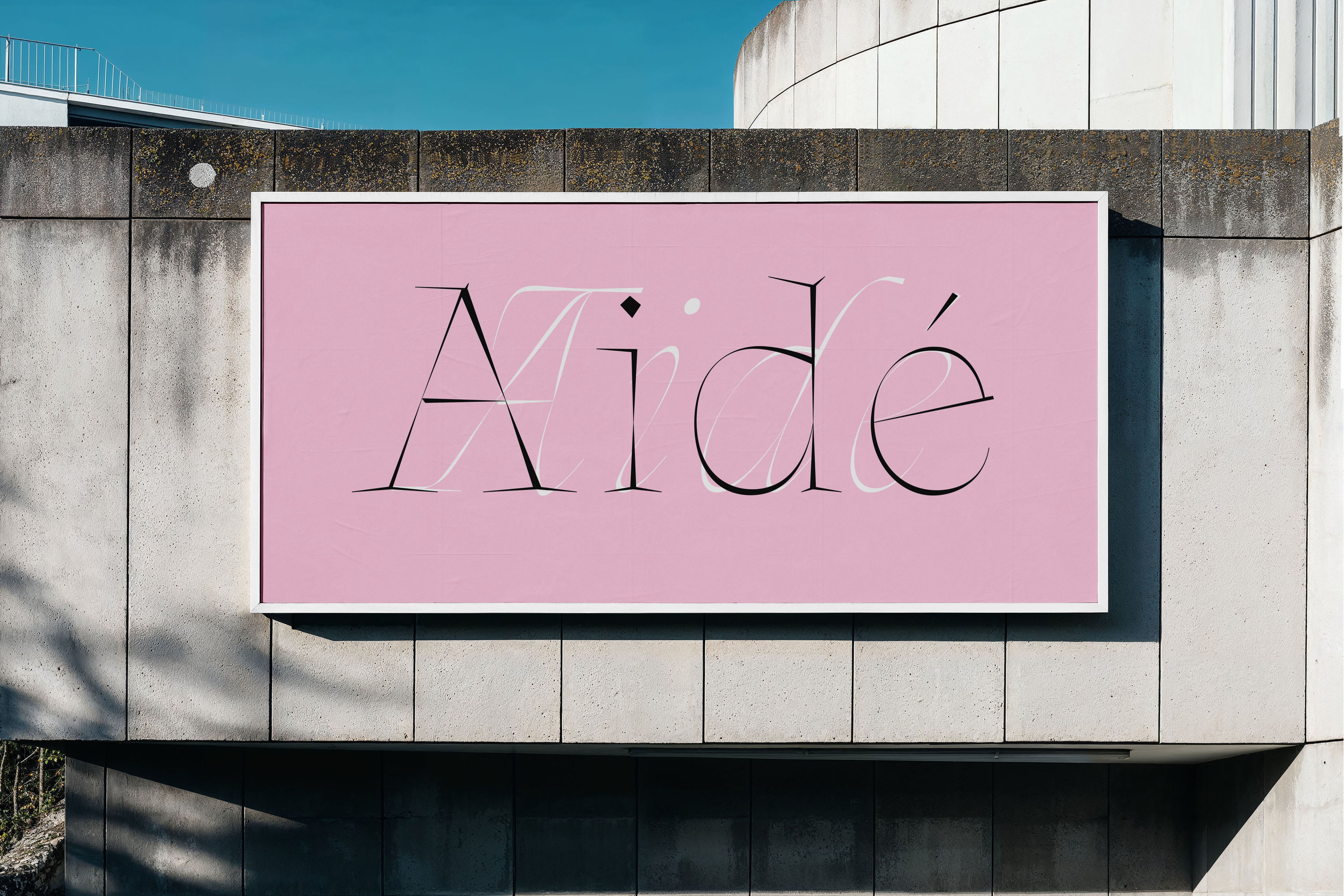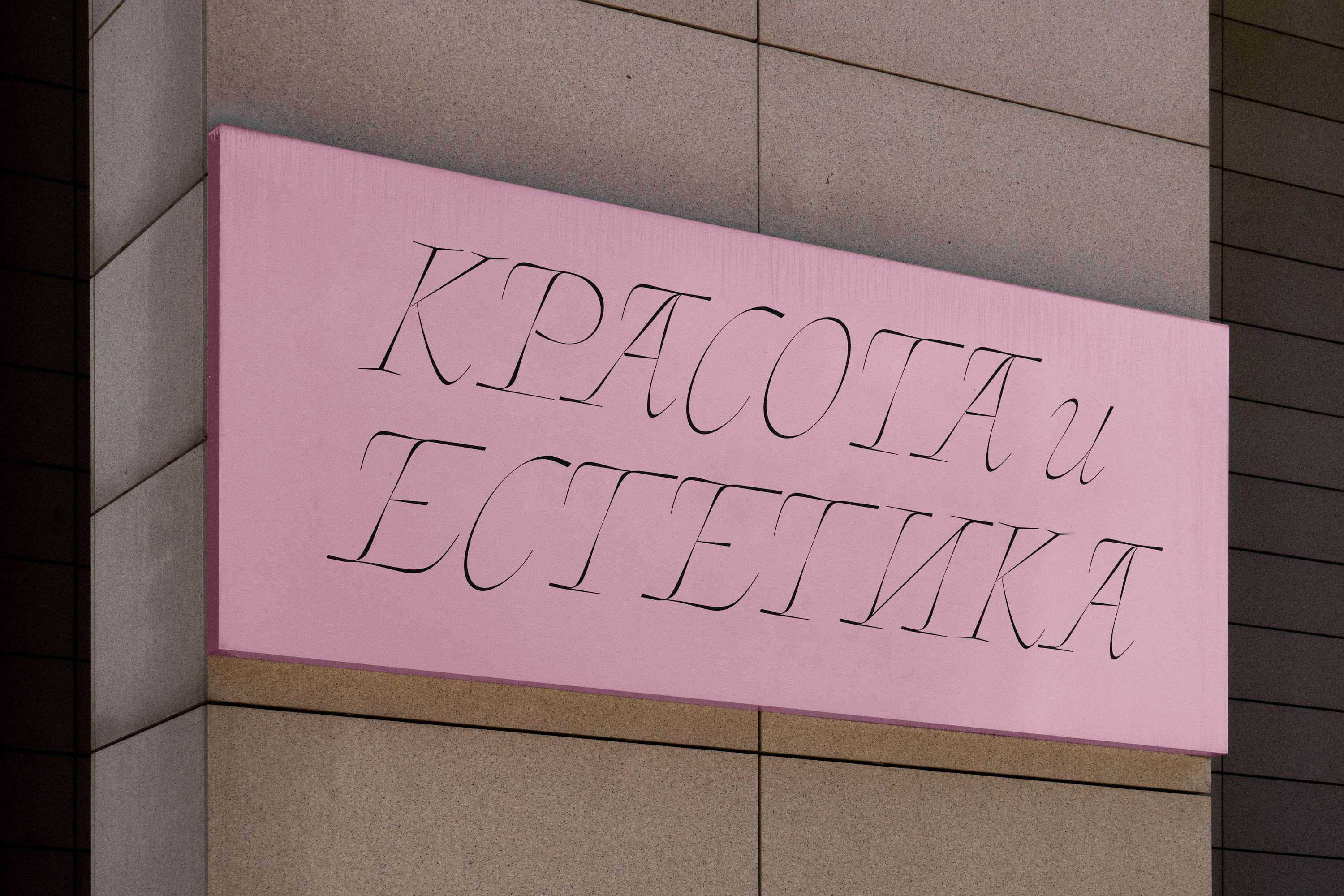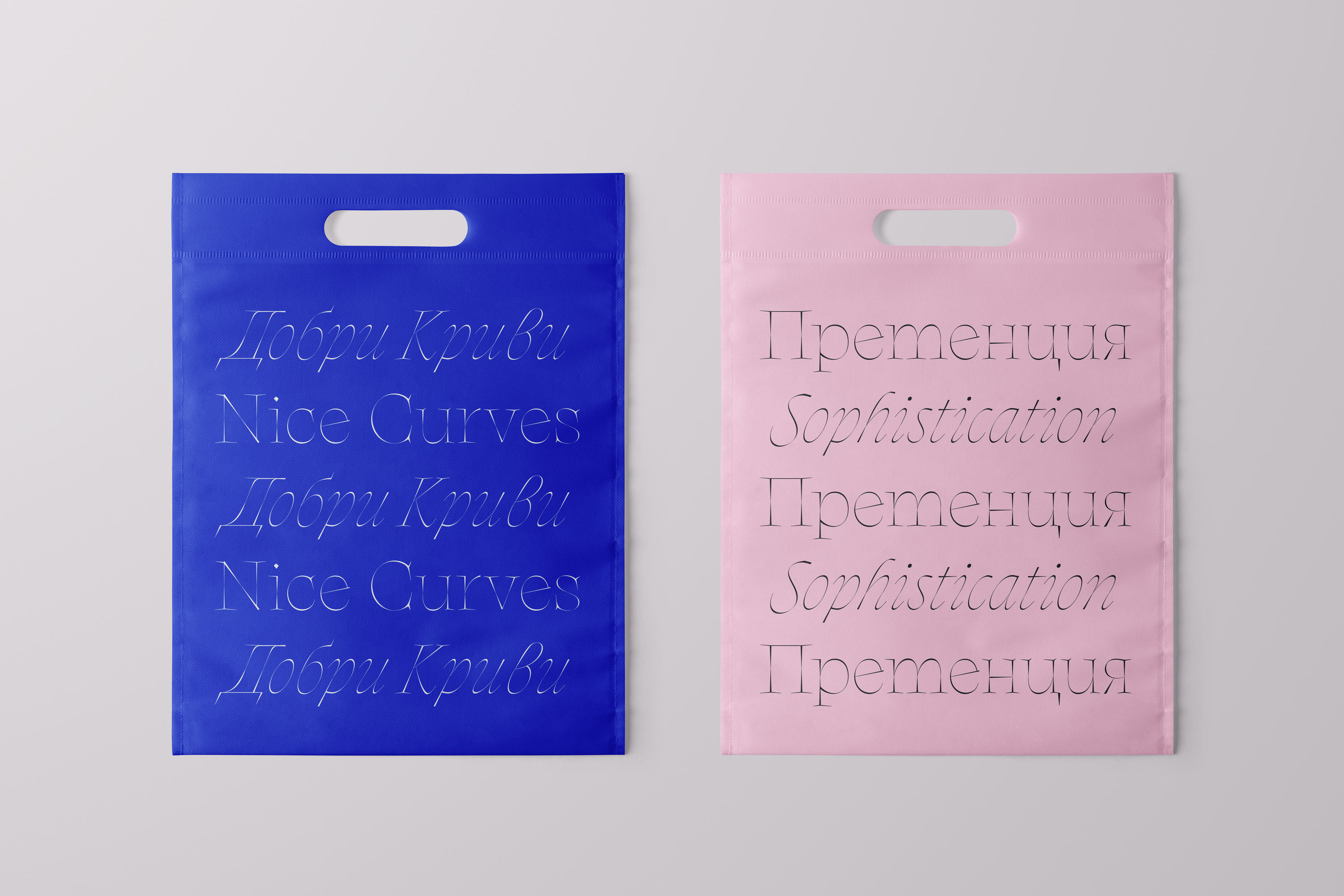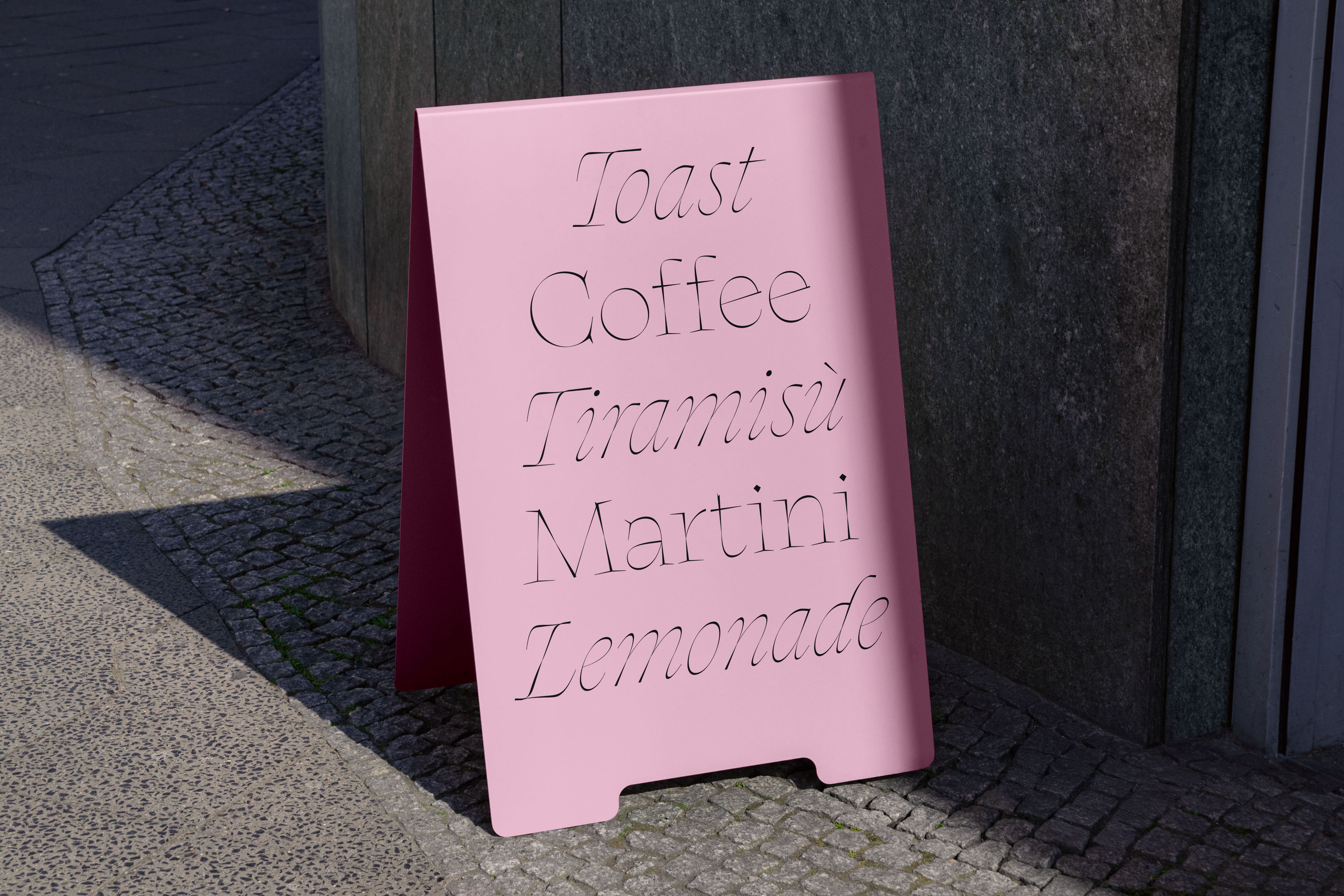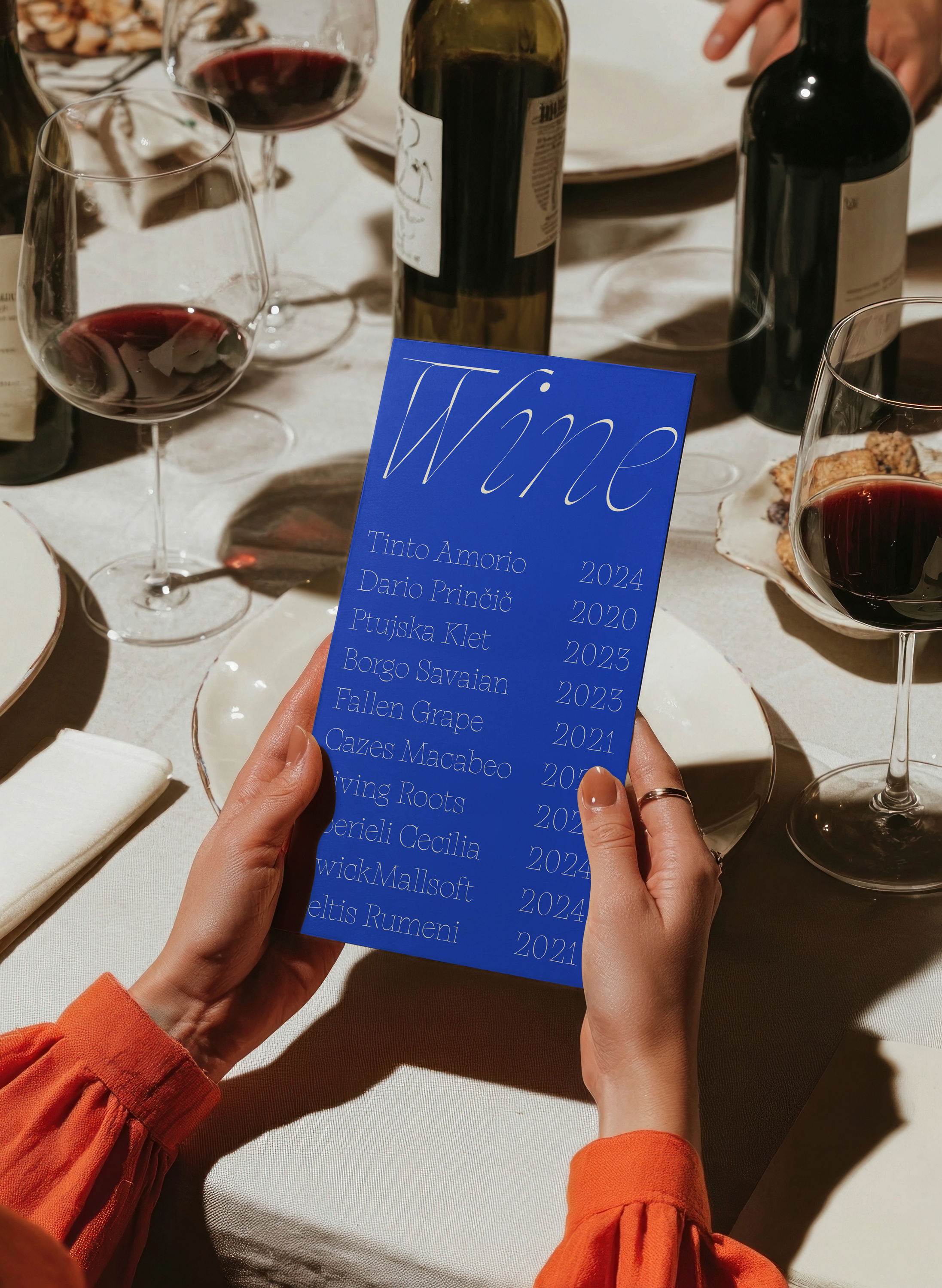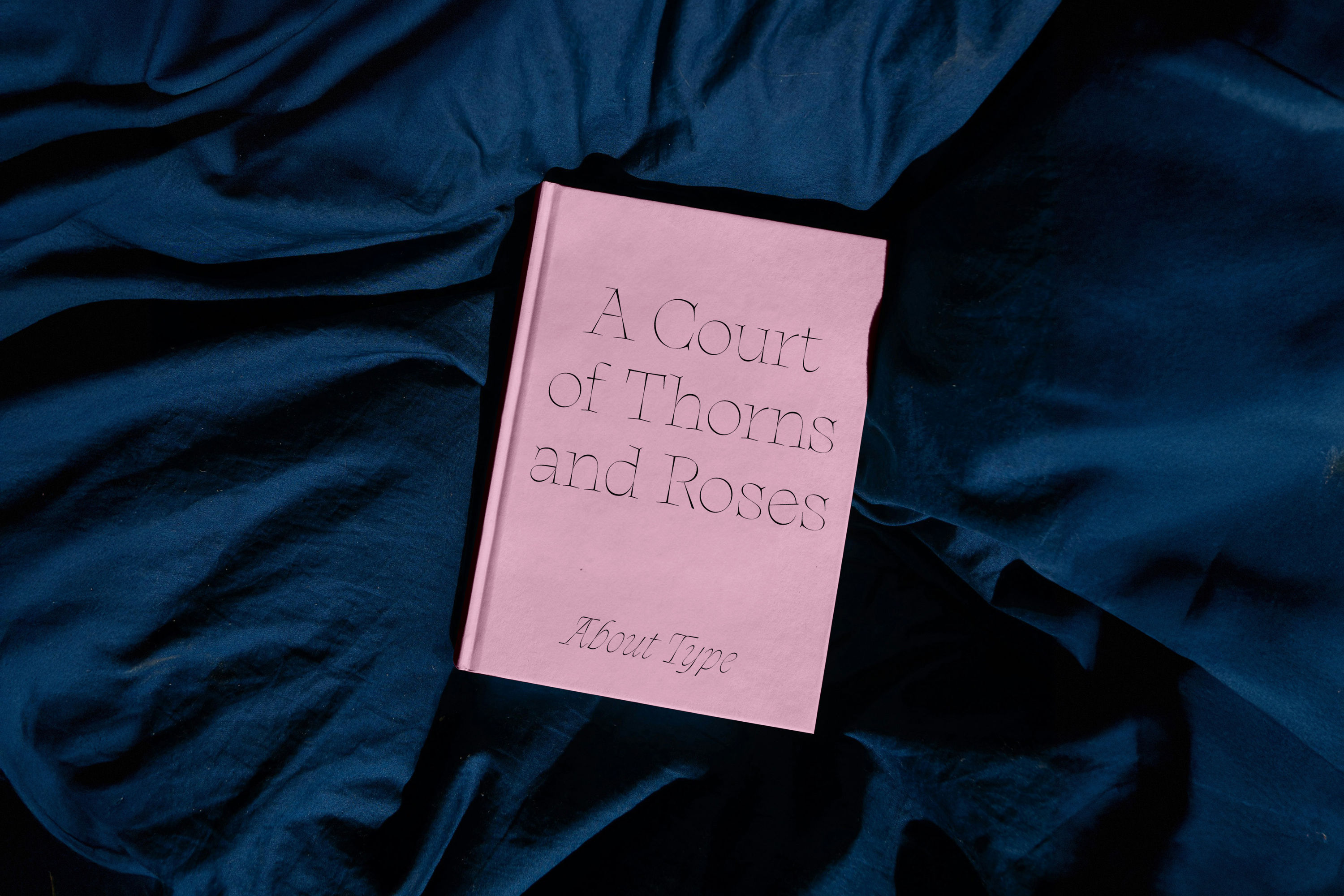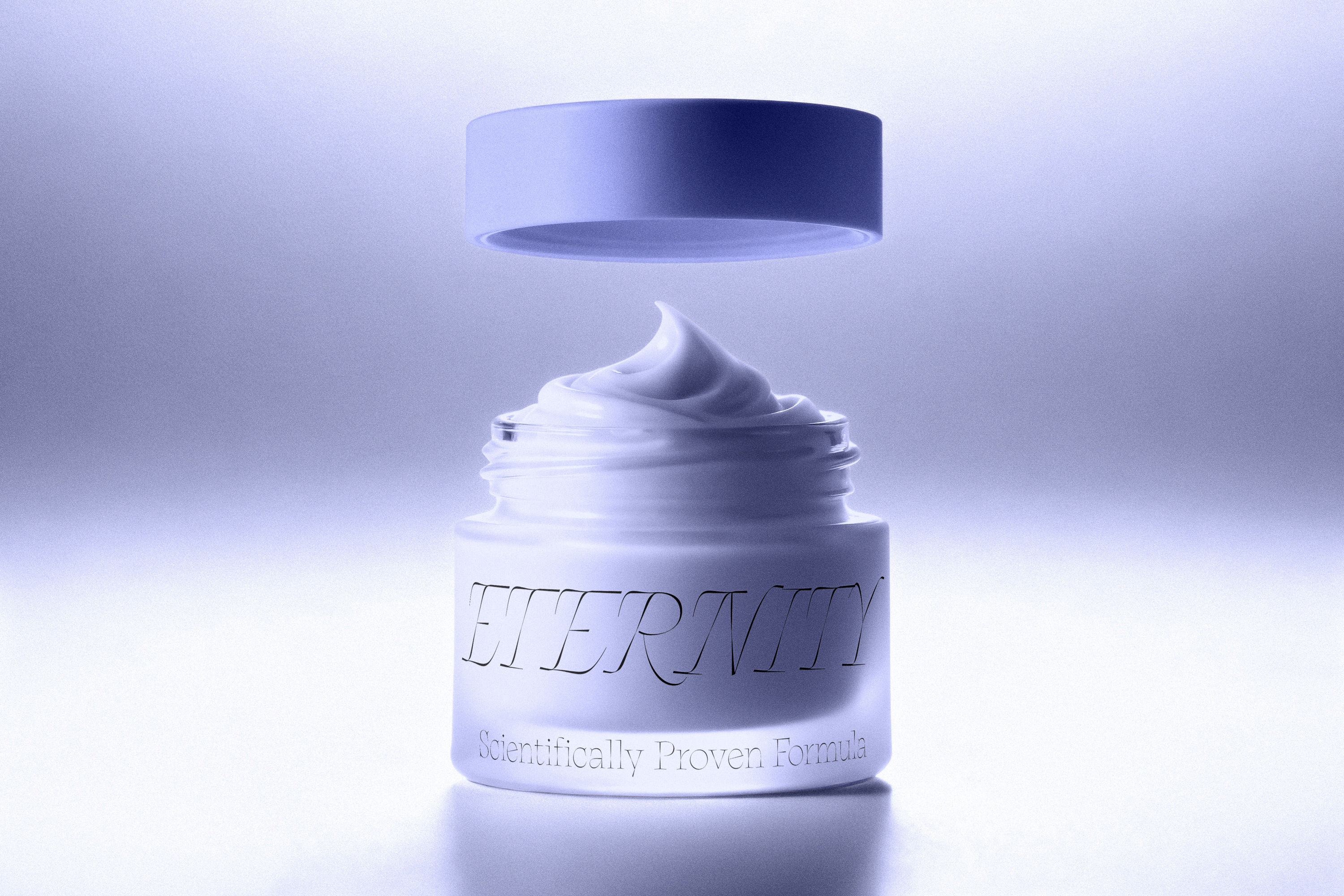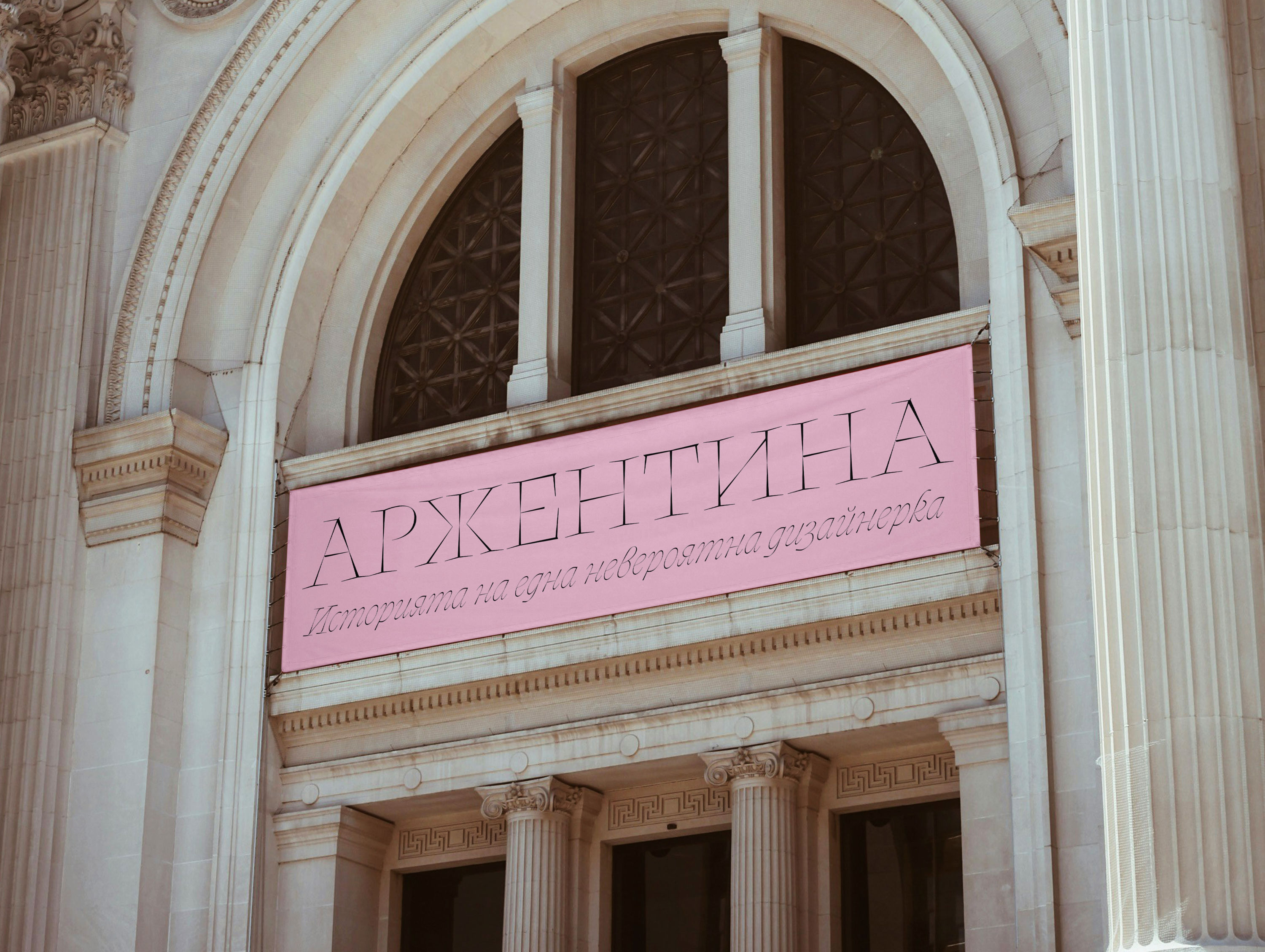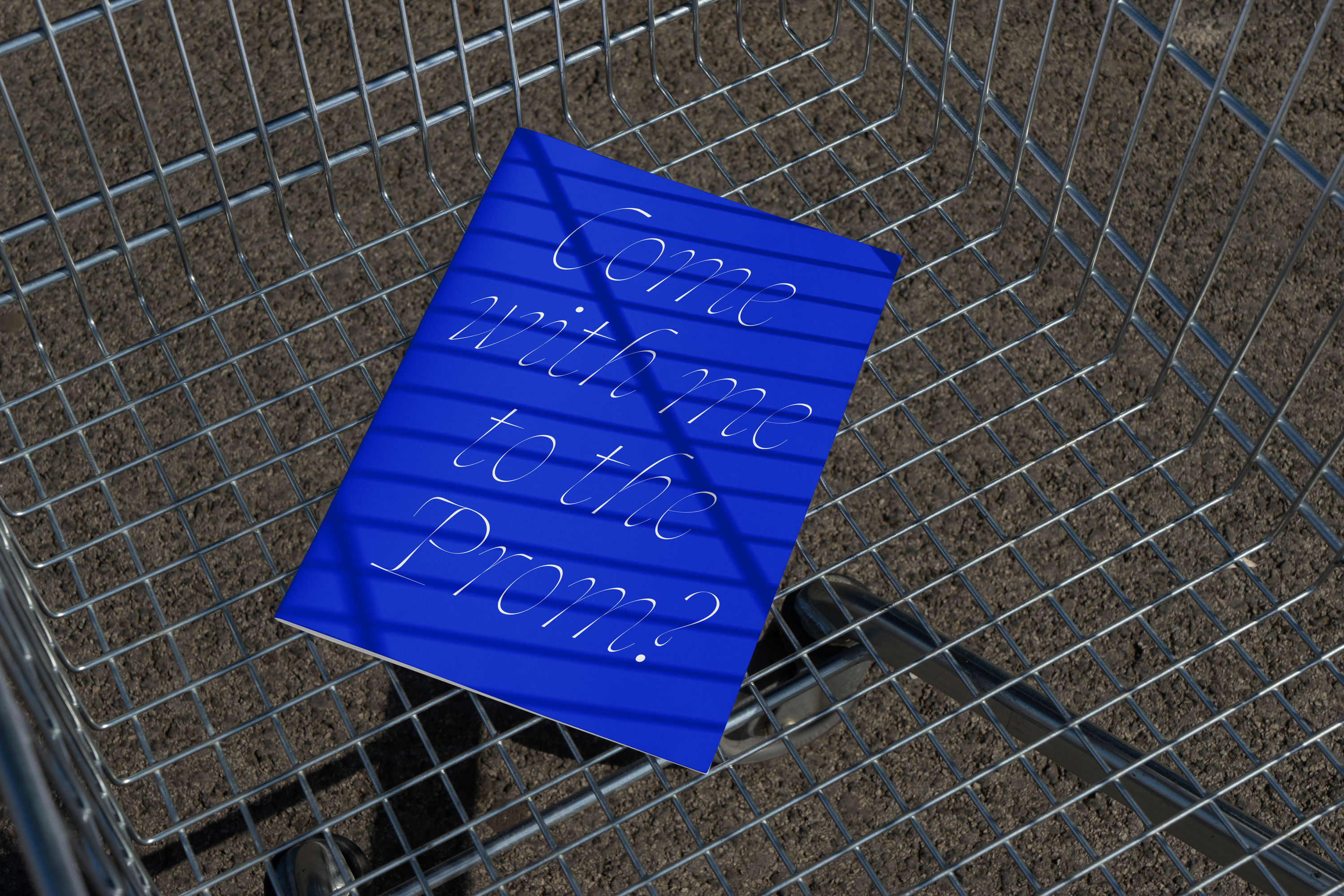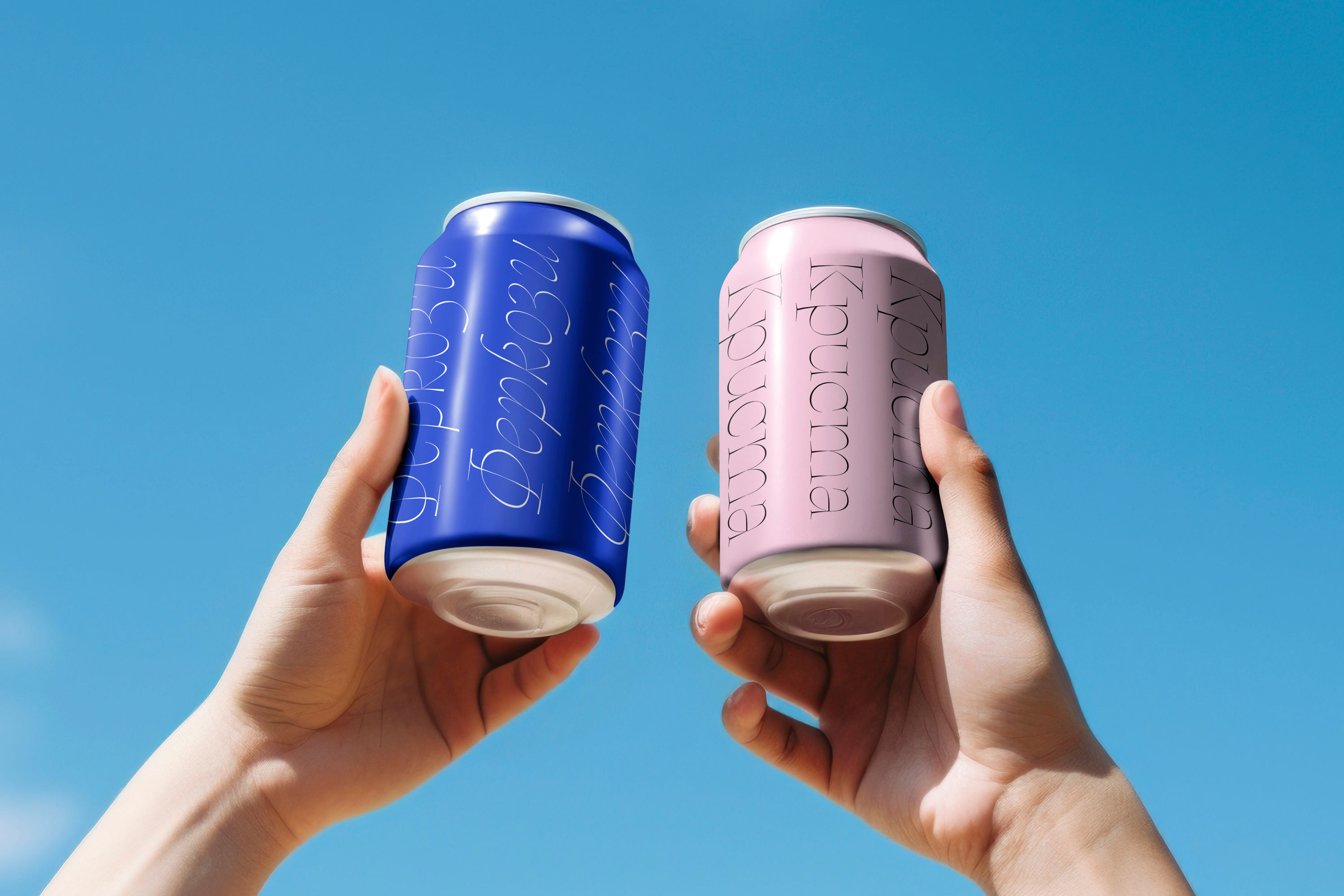
Aidé
Aidé is a sharp display typeface where soft forms meet ultra-thin serifs to create a singular spiked texture. Built from the tension between spheres and spines, its letterforms balance delicate with sharp, resulting in a system that feels fragile and unbreakable at the same time. The fractured joins within the vertical stems introduce a sense of disruption, while the elongated serifs bring stability and rhythm to the overall form. Designed purely for headlines and large-scale typography, Aidé reveals its full personality at display sizes, where its distinctive silhouette and intricate details can fully unfold. Despite its ornamental character, the typeface maintains clarity and control, creating a visual language that feels sophisticated, expressive, and quietly playful. Inspired by a beloved hedgehog, Aidé carries a unique charm—cute and powerful, sensitive and unmistakably confident.
Consultant
Krista Radoeva
Stylistic Sets
Alt &: Open SS01
Bulgarian Cyrillic SS02
Serbian Cyrillic SS03